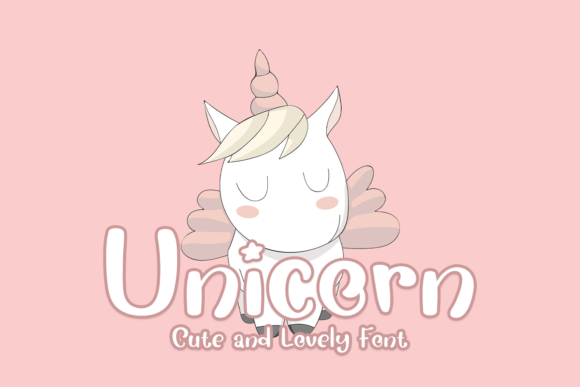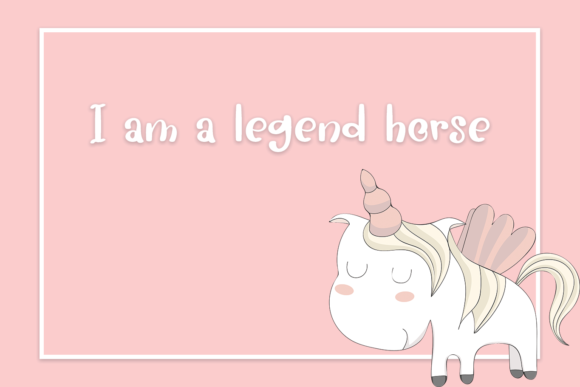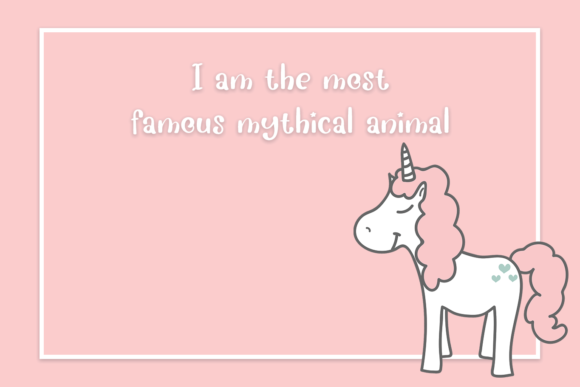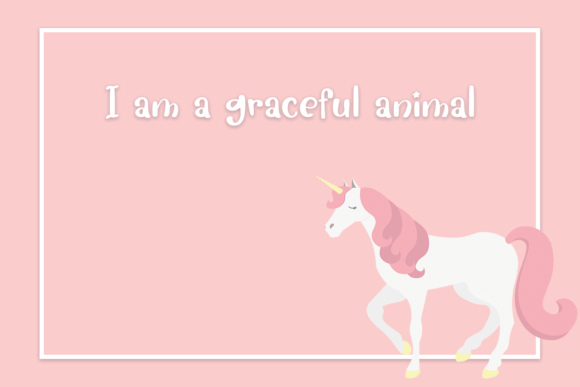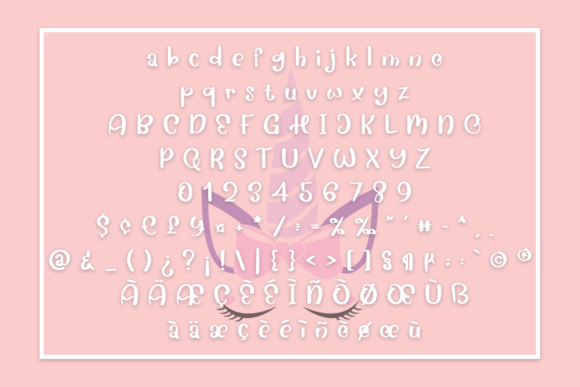
Unicorn Font
About Unicorn Font
Unicorn is a cute, lovely and chic handwritten font. No matter the topic, this font will be an incredible asset to your fonts’ library, as it has the potential to elevate any creation.